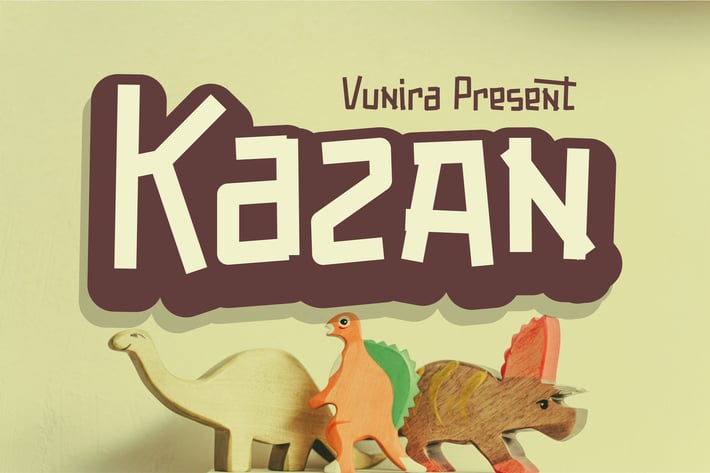
Kazan | Fancy Font
Kazan | Fancy Font with a calligraphy style, So beautiful on invitation like greeting cards, branding materials, business cards, quotes, posters, and more!